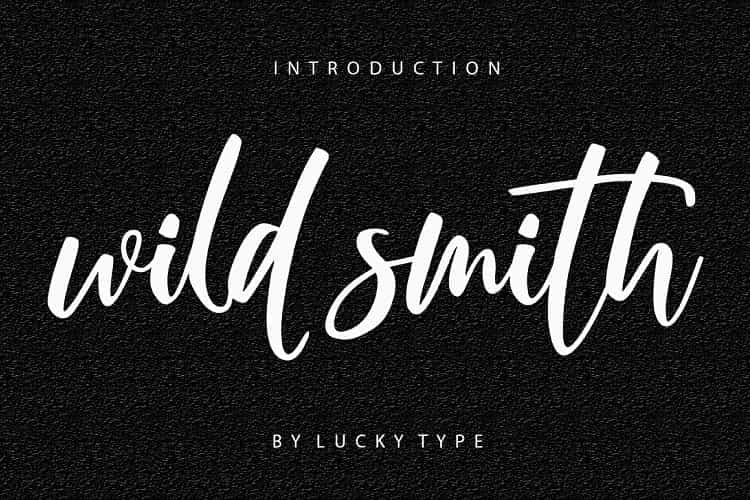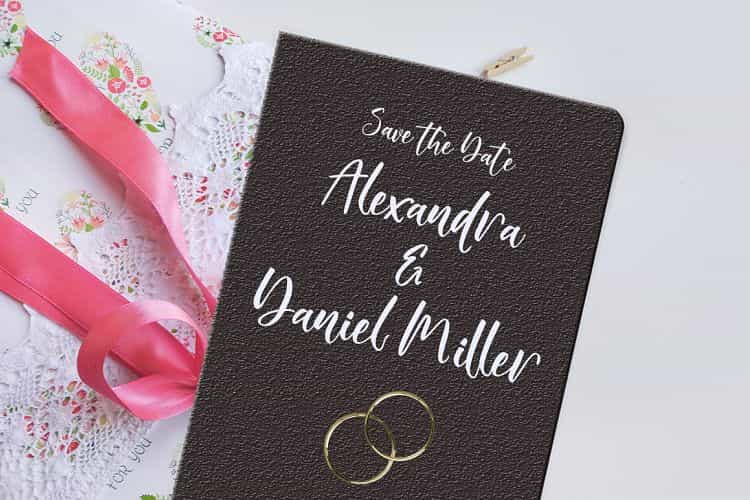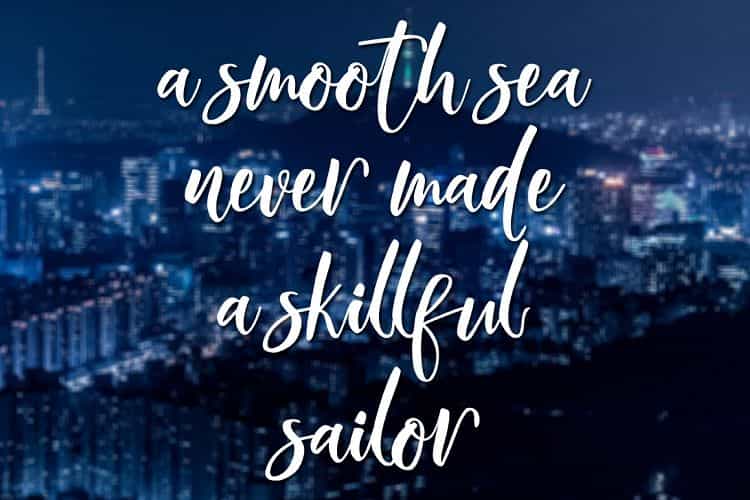
Wild Smith is a new script font that I would like to present to you. It was made by Lucky Type. WildSmith Script is a newly designed contemporary script font with an unsettled baseline. Trendy and feminine style. Wild Smith is a beautiful choice for wedding invitations, thank you cards, quotes, greeting cards, logos, business cards and so much more. Ideal for ink or watercolour. It also includes the letters at the beginning and end of a word, alternates, ligatures and multiple language support.